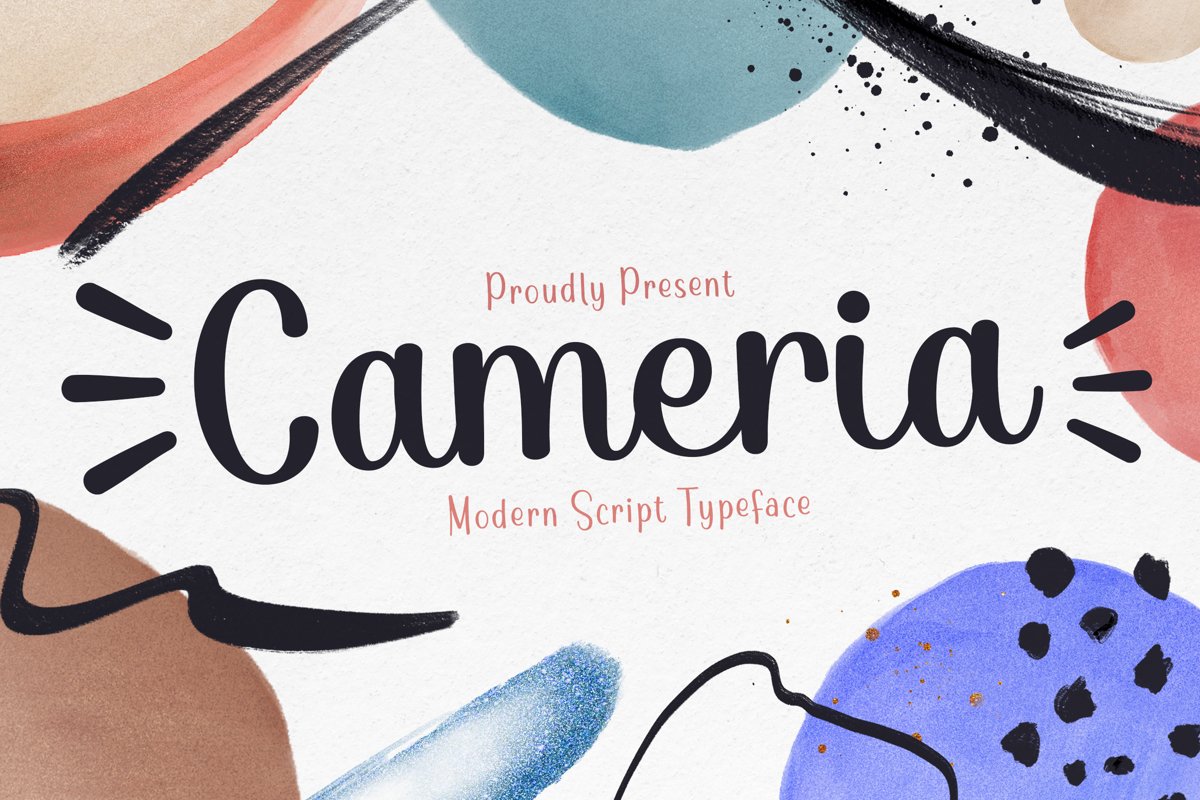
Cameria is a modern script typeface. Perfect for display, quotes, poster, logo, logotype, branding, crafting needs, event needs, signature, packaging, merchandise, header, tittle business card and many more.